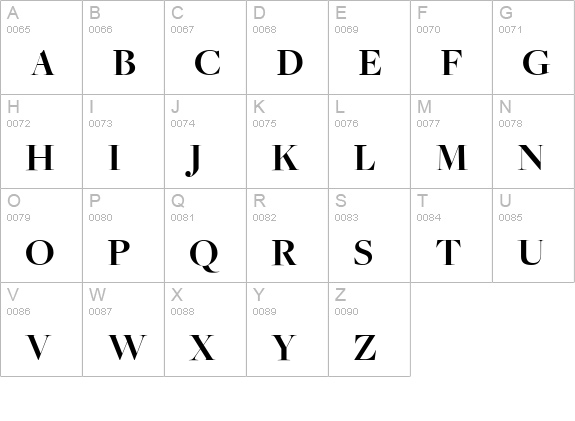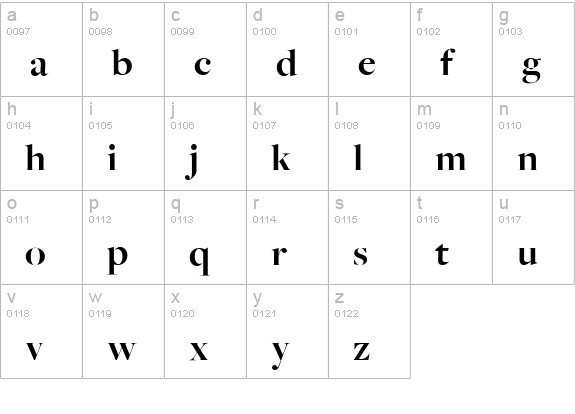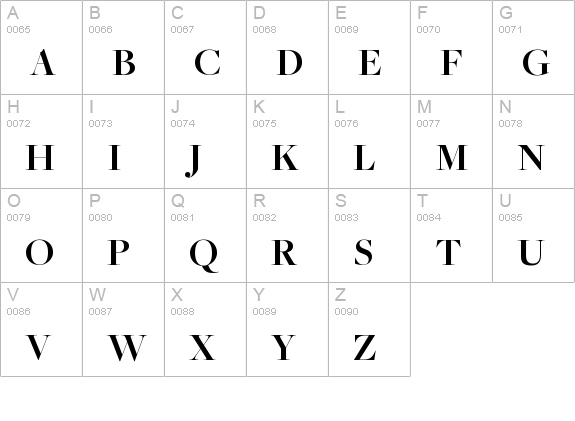
FreightBigBold Font Details
FreightBigBold is a robust and commanding typeface that demands attention with its bold and impactful design. Perfect for headlines, banners, and logos, this font exudes a sense of strength and authority. With its wide letterforms and thick strokes, FreightBigBold makes a bold statement in any design project. The best part? FreightBigBold is available for free download at FontsMarket.com. Whether you're a designer looking to make a strong visual impact or a business seeking a font that commands attention, FreightBigBold is the perfect choice. Download it today and elevate your designs with this powerful and dynamic typeface.